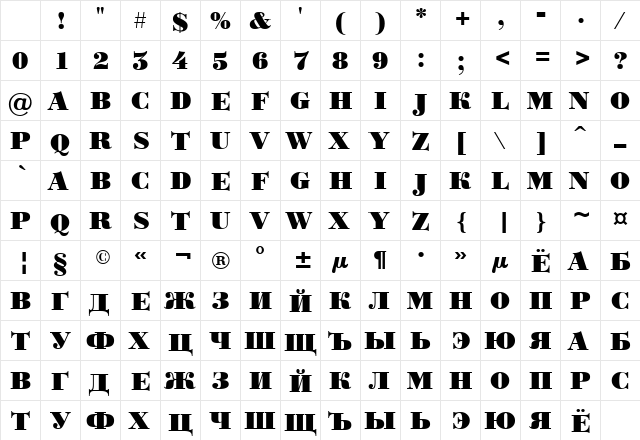
Complete a_BodoniOrtoTitul Black glyph index. Displaying only characters natively supported by a_BodoniOrtoTitul Black font.
a_BodoniOrtoTitul is a composed and adaptable typeface that performs quietly and consistently across a wide range of design contexts.